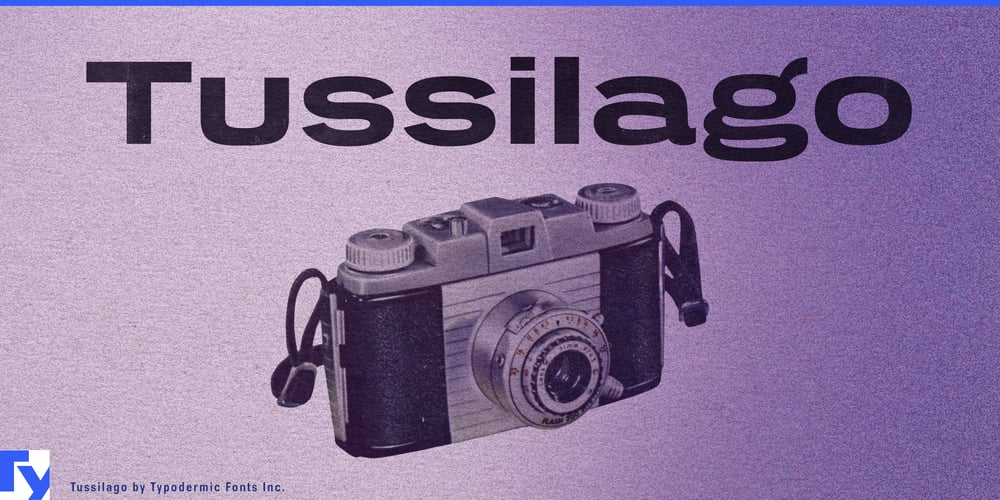
Tussilago Font Family was designed by Ray Larabie and published by Typodermic. Tussilago contains 14 styles and family package options. Tussilago: a typeface that blossoms with the untamed beauty of a wildflower meadow. Named after the resilient coltsfoot—one of spring’s earliest bloomers—this font family unfurls its petals across the digital landscape with a refreshing vigor that defies typographic conventions.At its root, Tussilago is a sturdy, extended sans-serif that grows beyond the confines of standard geometric designs. Its wide letterforms spread across the page like a carpet of diverse flora, each character a unique bloom in this typographic garden. The result is a typeface that speaks with the quiet strength of nature, perfect for designs that seek to reconnect with the organic world. The true wonder of Tussilago lies in its varied weights, each offering a distinct herbal essence. The lighter cuts whisper like delicate chamomile or the subtle sweetness of wild violet—perfect for designs that require a gentle touch. As you progress through the weights, the personality intensifies. The boldest cuts stand tall and proud like robust stalks of mullein or the vibrant presence of echinacea. With seven weights and their italic counterparts, Tussilago offers a full herbarium of design possibilities.Tussilago’s versatility mirrors the adaptability of wildflowers. Like plants that thrive in diverse conditions, this typeface offers two numeral options—lowercase (old-style) or lining—for each weight and style. This flexibility allows you to cultivate perfectly balanced designs, whether you’re composing an eye-catching headline or nurturing readable body text. Just as wildflowers know no borders, Tussilago’s appeal is universal. It supports a vast array of Latin-based European writing systems, ensuring your naturalistic designs can take root and flourish from the meadows of Albania to the grasslands of Zulu-speaking regions. It’s a truly global typeface for designers who draw inspiration from the natural world.Are you ready to let your designs run wild? Tussilago awaits, its full spectrum of natural beauty ready to transform your projects from mundane to magnificently untamed. Download Tussilago today and start cultivating designs that will make your audience stop and smell the typography. In a concrete jungle of digital design, Tussilago offers a breath of fresh, wildflower-scented air.